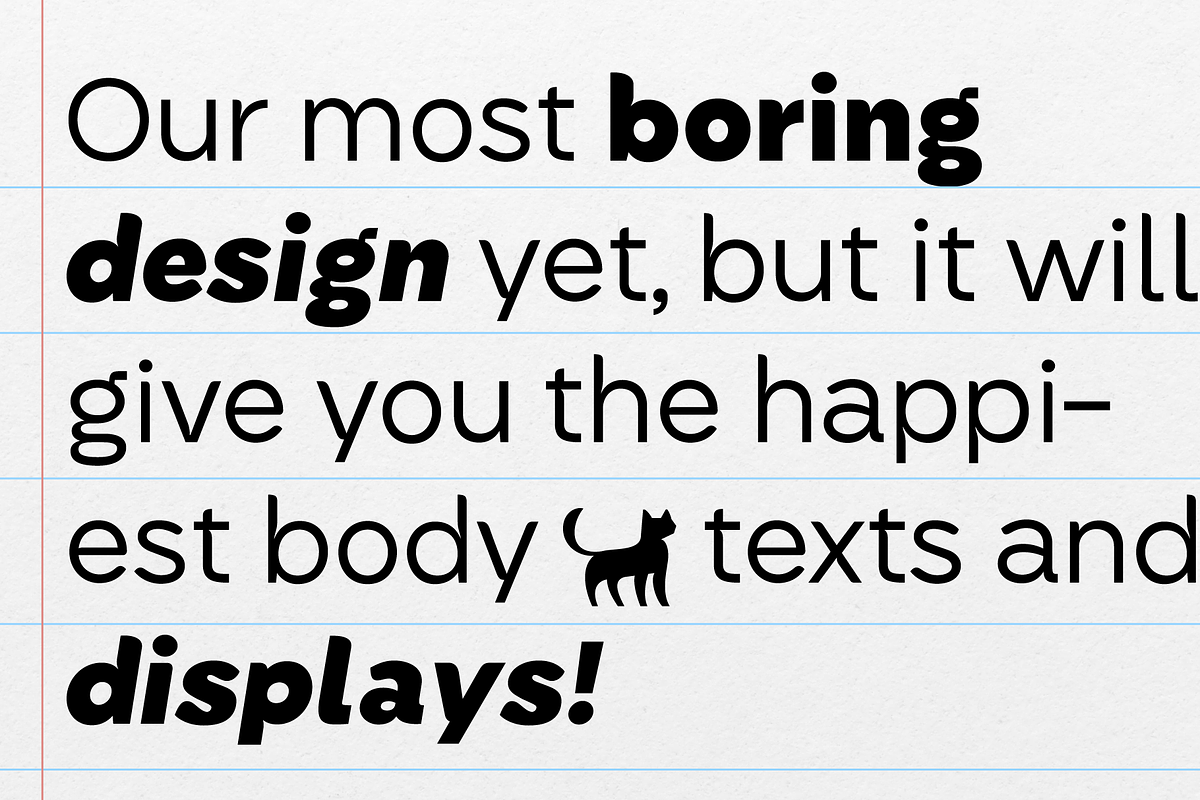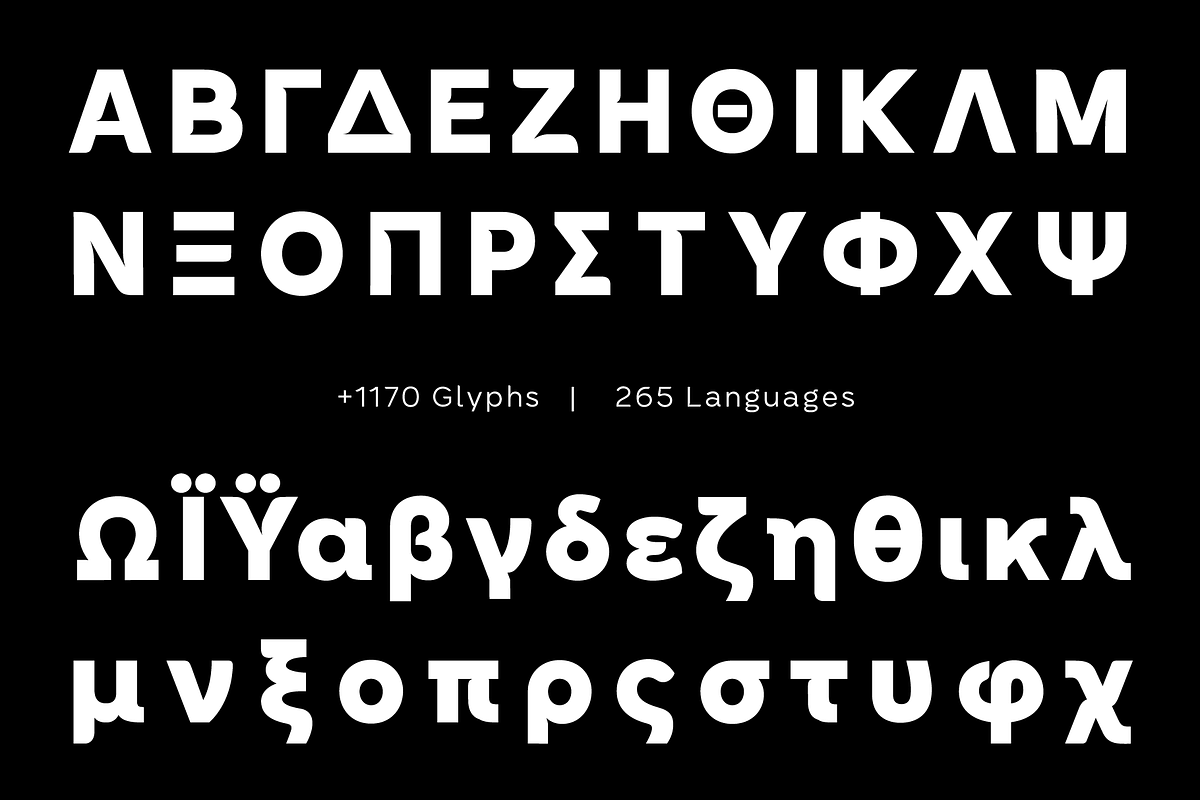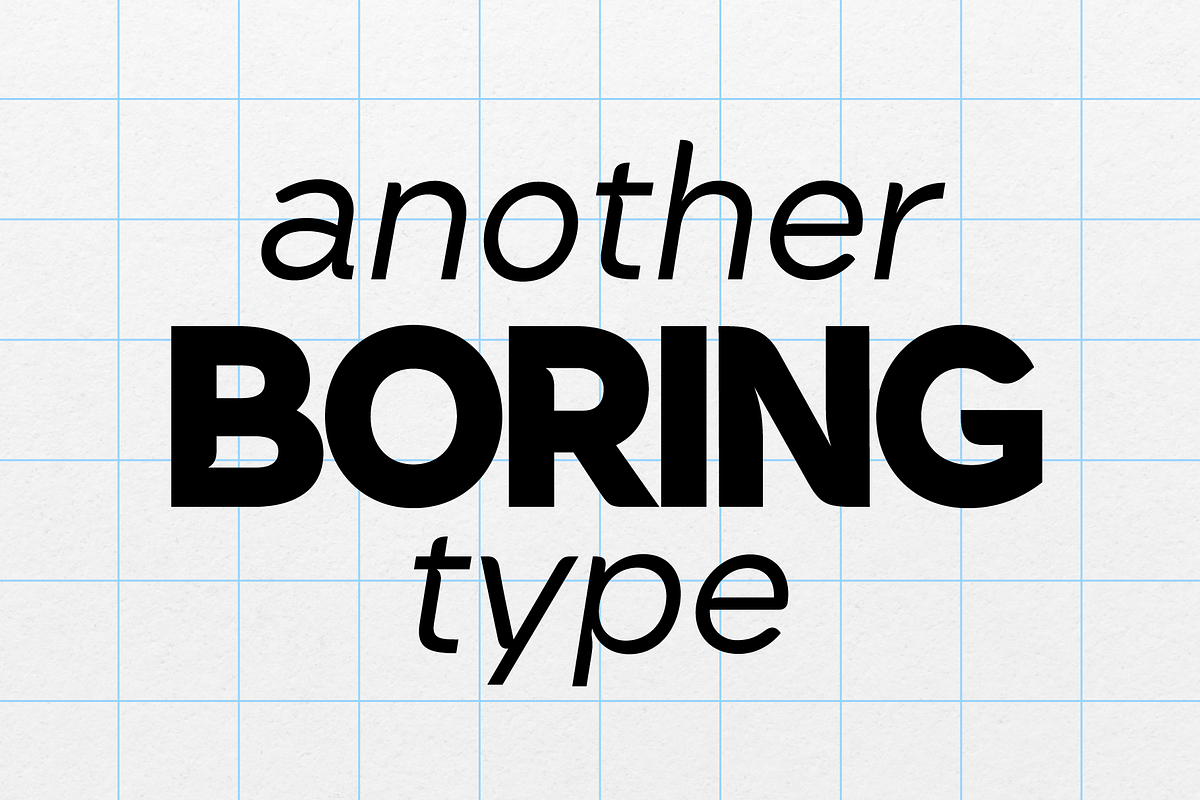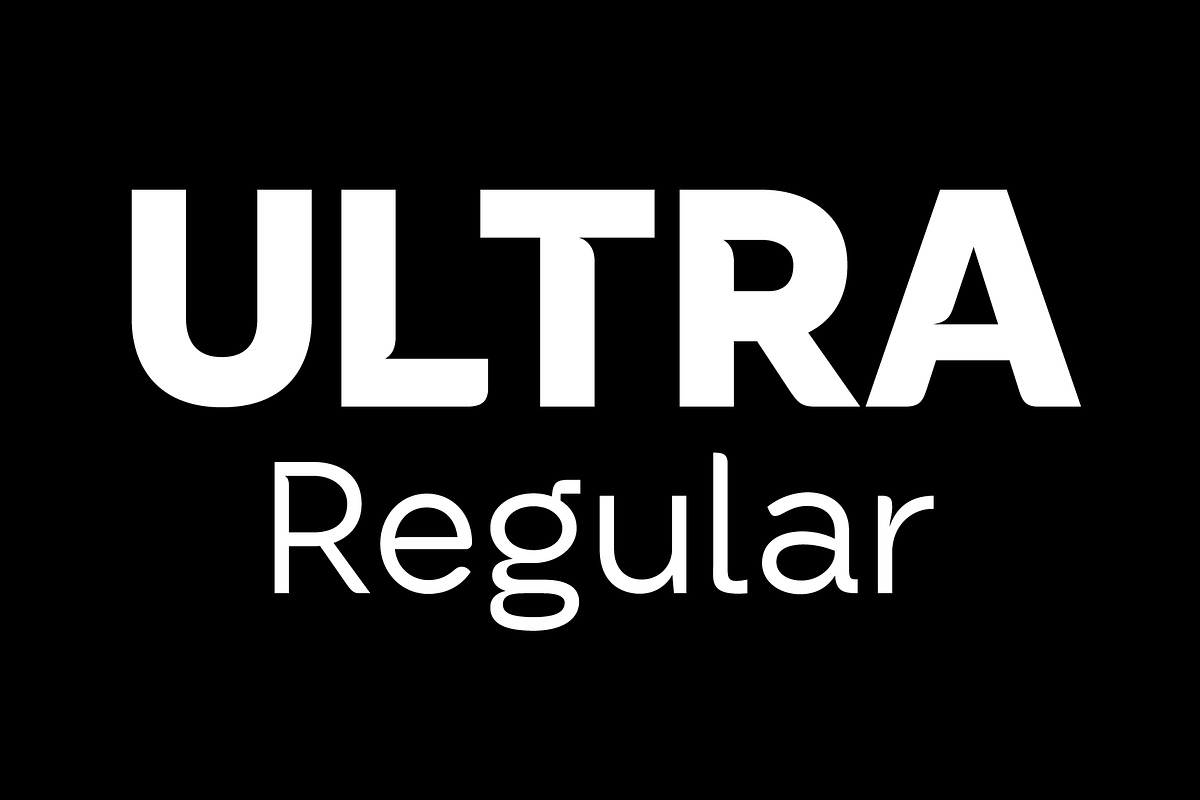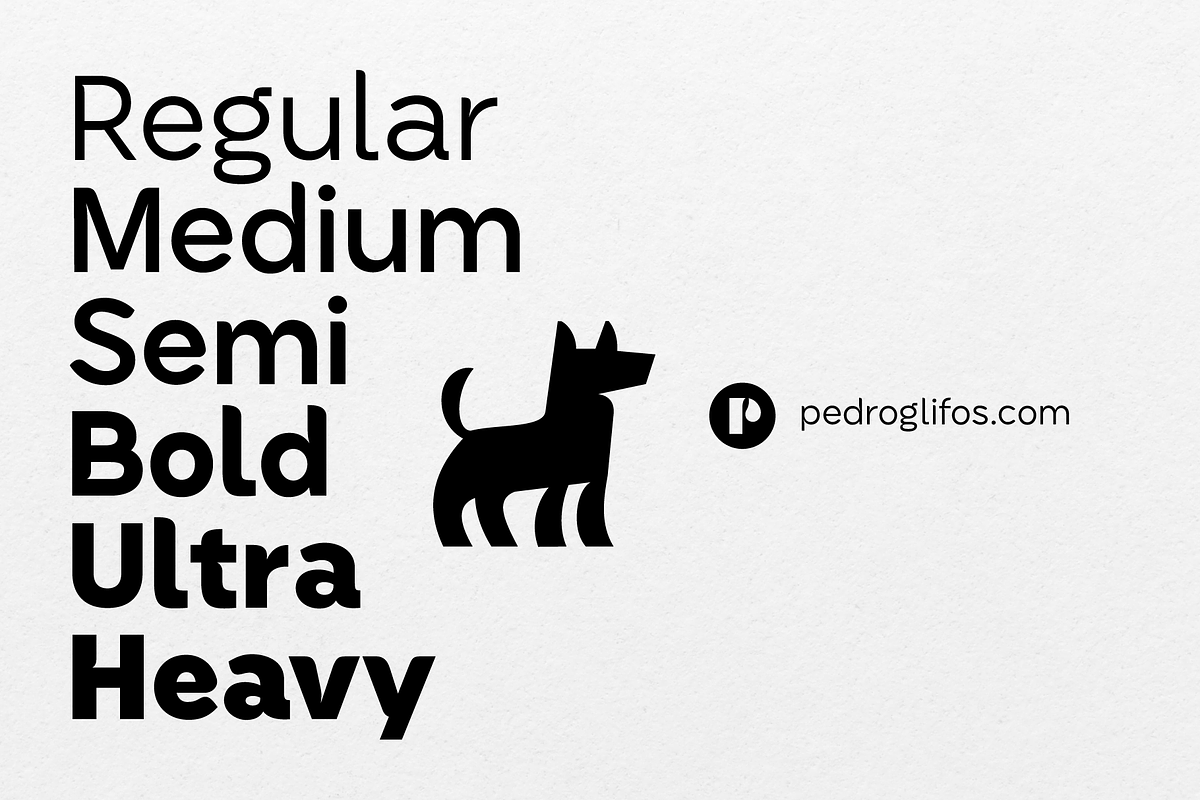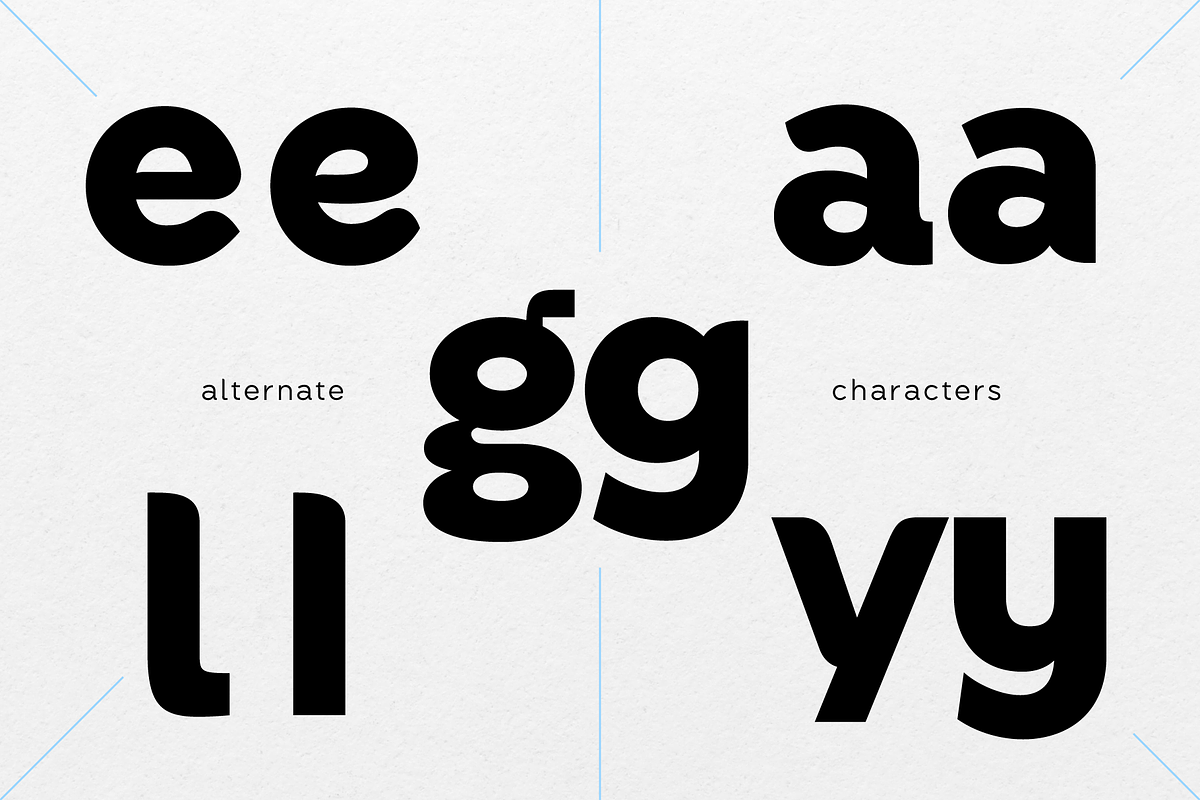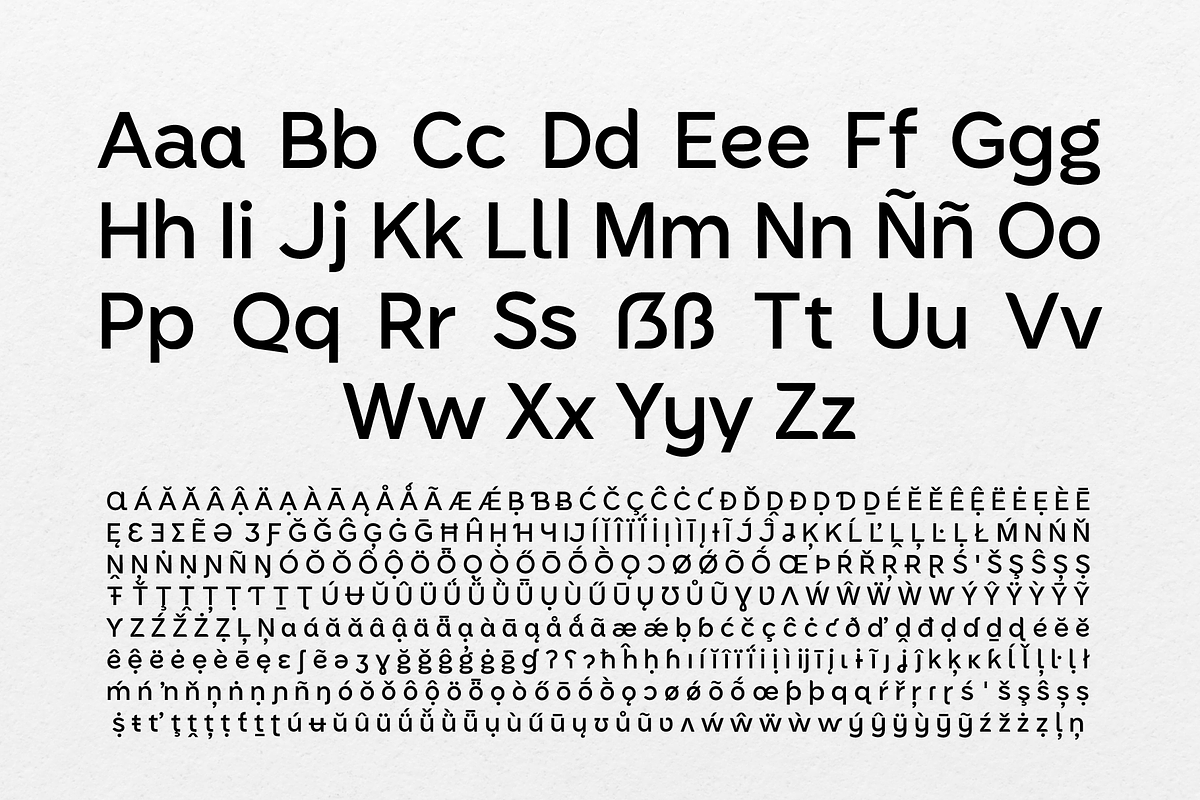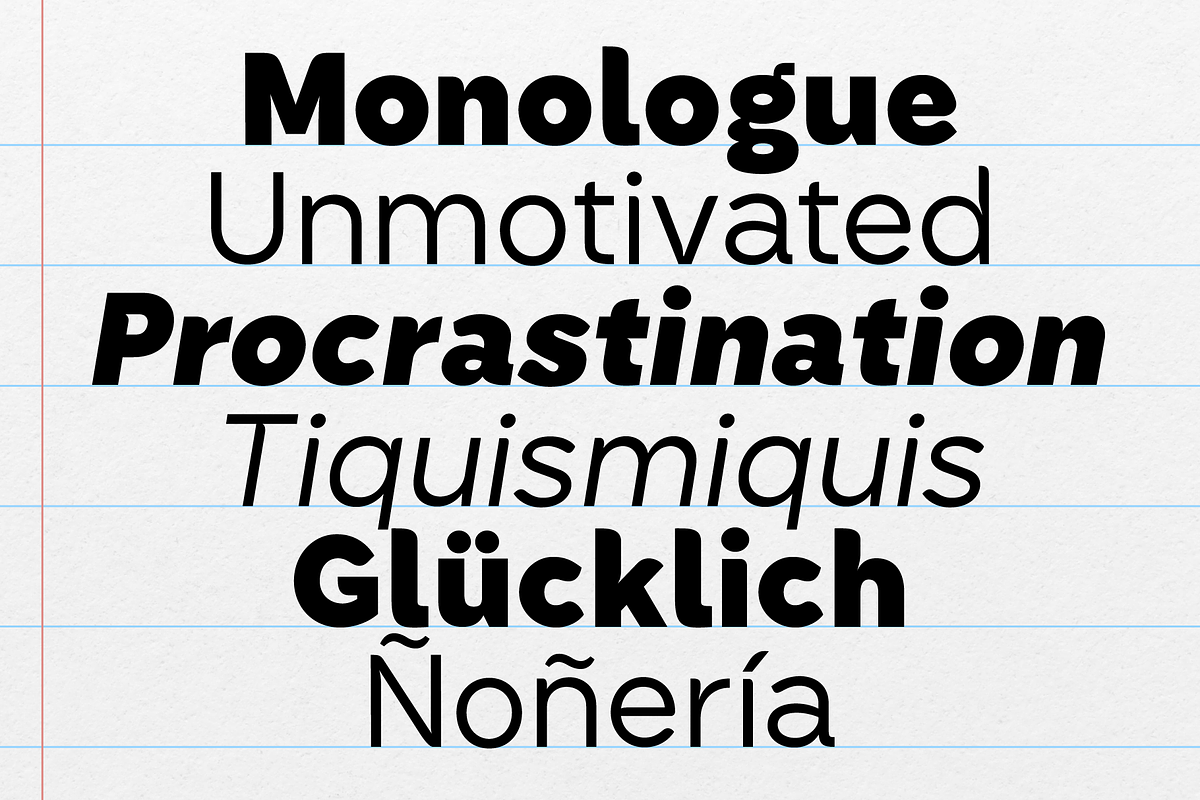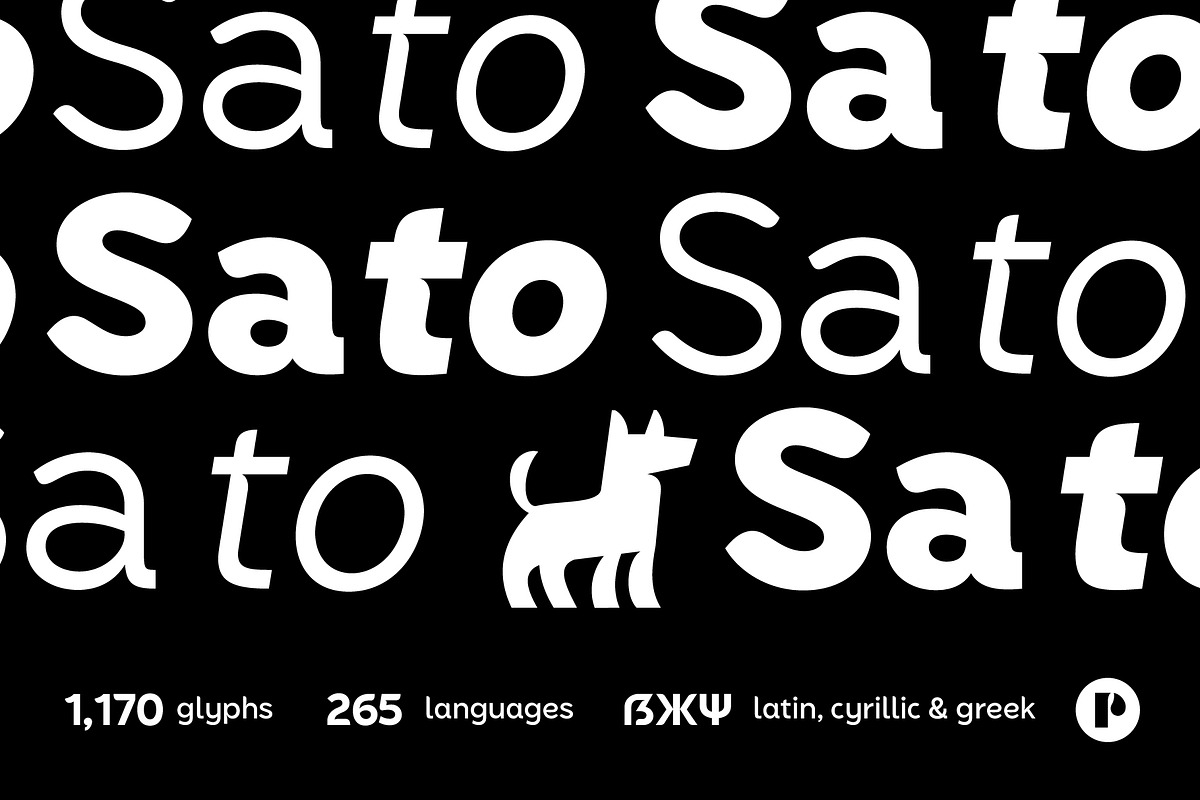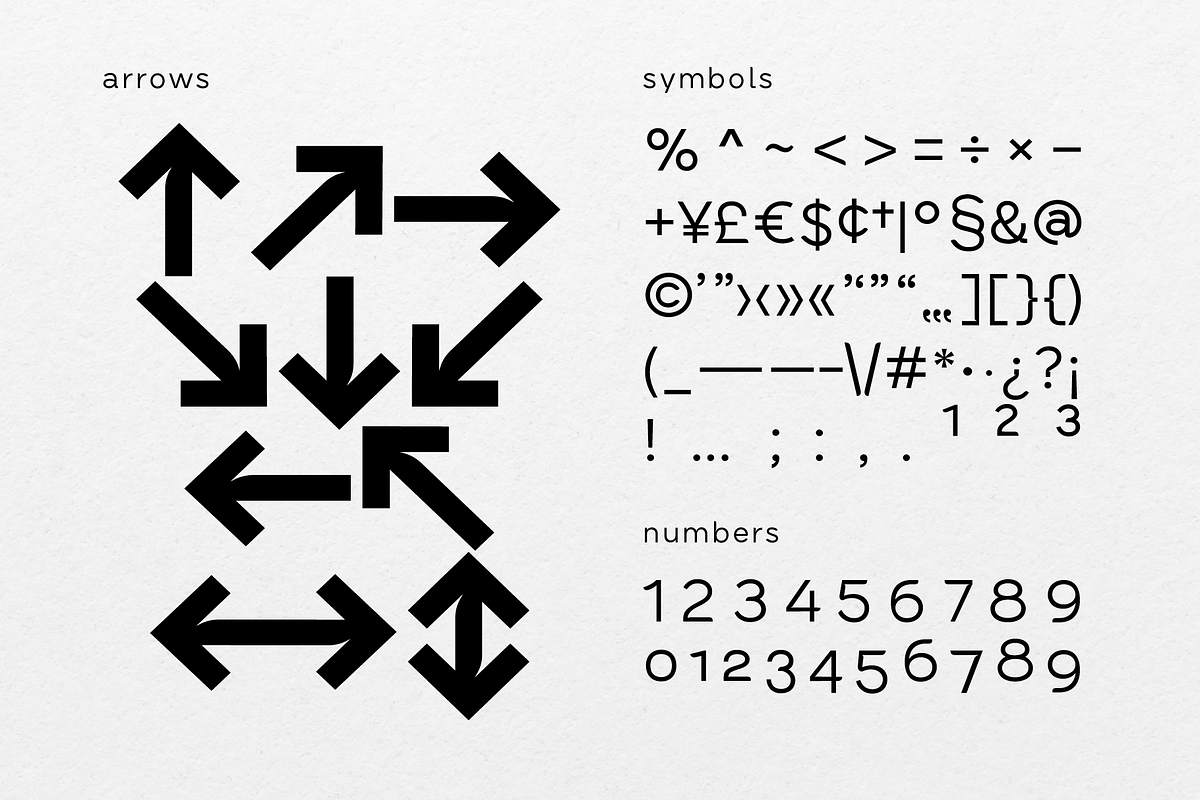
Sato | The Complete Family
The loyal & joyful sans
In Puerto Rico, stray dogs are affectionately referred to as satos. Inspired by the lively spirit and endearing nature of these beloved companions, Sato is more than just a typeface –it's a celebration of joy and companionship. Just like its namesake, Sato is a versatile and friendly sans-serif font, designed to connect with everyone it encounters. As you read this text, you're experiencing the charm of Sato firsthand. Crafted with adaptability in mind, Sato effortlessly adapts to both text and display settings, ensuring a seamless reading experience in any context. With its playful yet refined design, Sato is the perfect companion for all your typographic needs – a font that's always ready to brighten your day :)